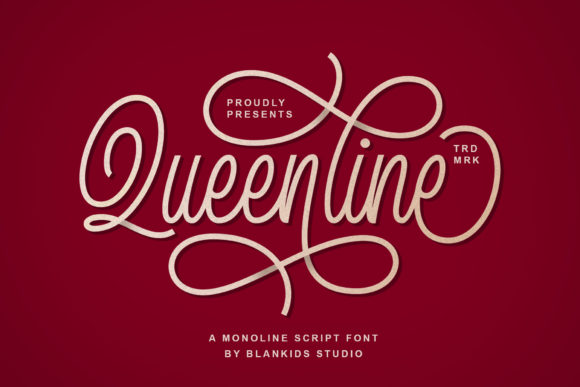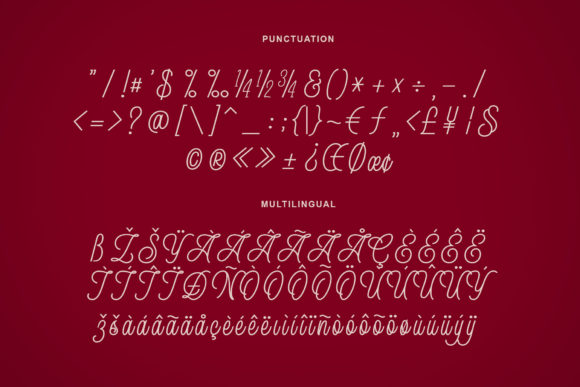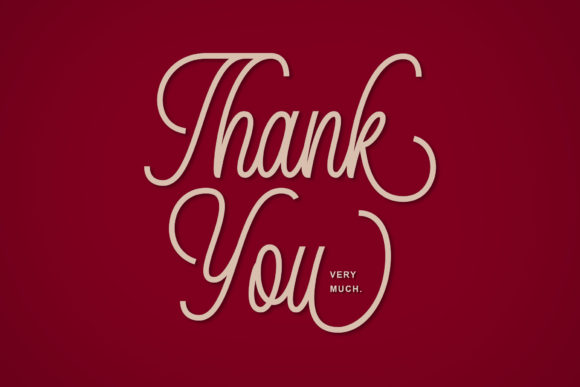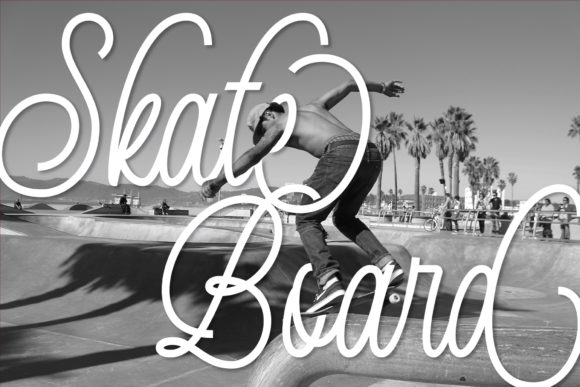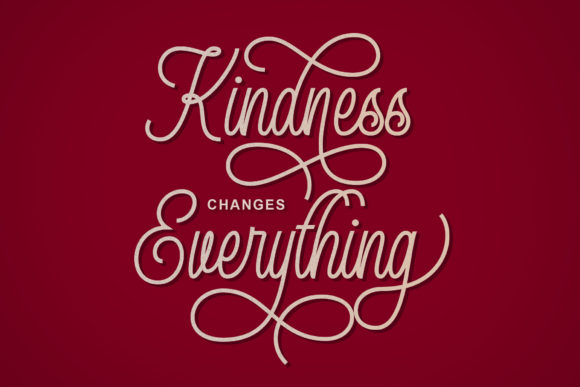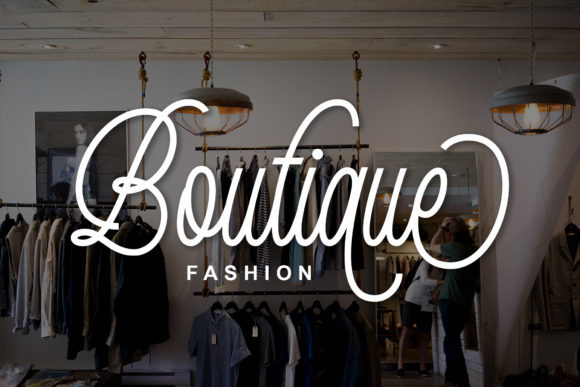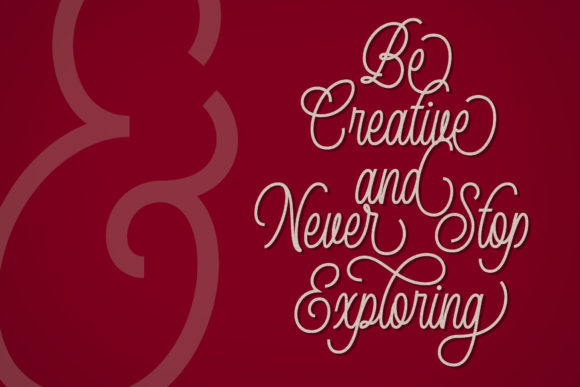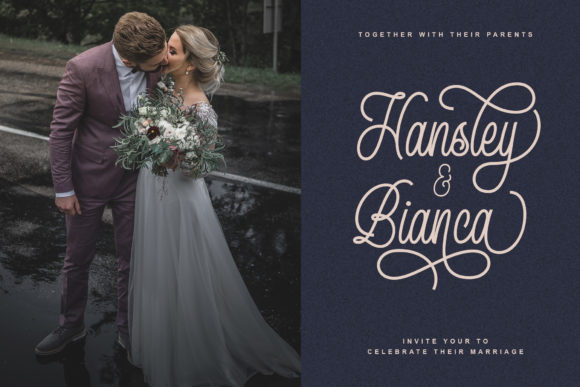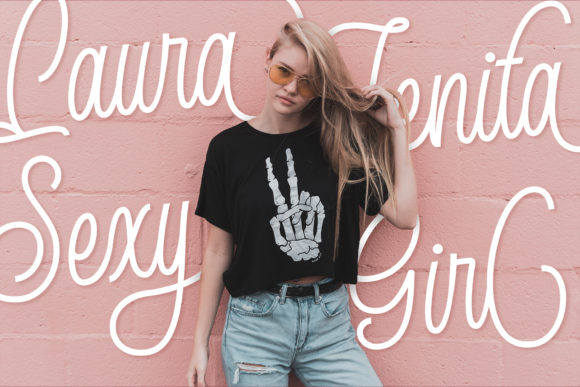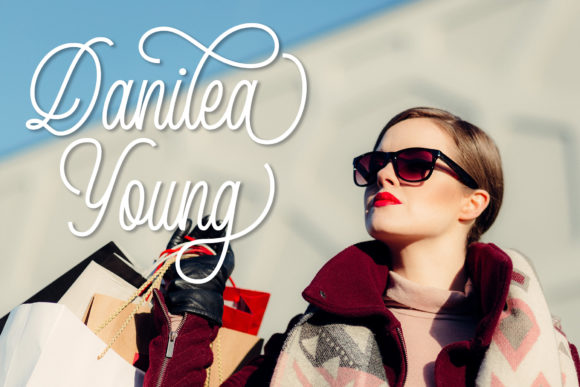
Queenline Font
About Queenline Font
Queenline is a beautiful monoline Script with a bold and unique touch. It will effortlessly inspire any new design ideas that need an authentic feel!